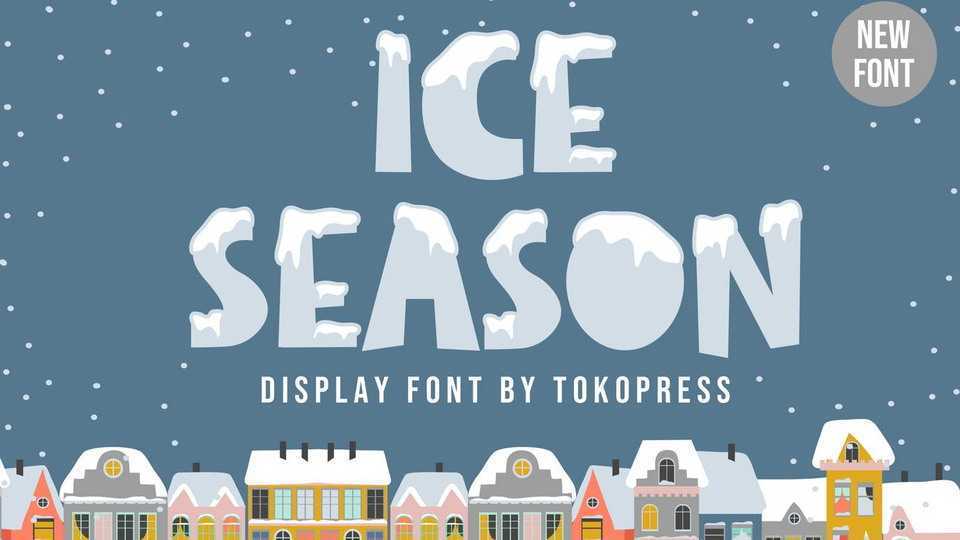
Download Ice Season font, a winter kids typeface. The happiness and joy of snowy weather. And Ice Season brings a smile all over the place, with that snowy part on the top of its face.